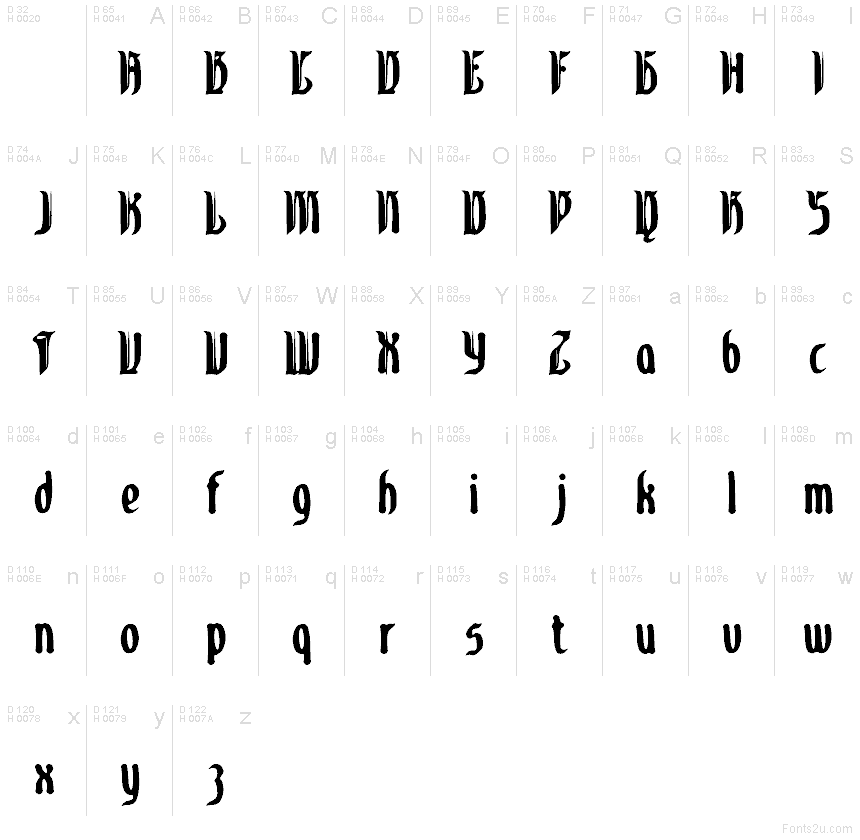
CSFalconeDrawn-Regular Demo
CS Falcone Drawn font by Craft Supply Co. is a vintage display font that beautifully combines ornate, decorative elements with a dramatic flair. With medieval influences and condensed width, this historical-inspired typeface evokes nostalgia. It adds an artistic touch to designs through its intricate details.